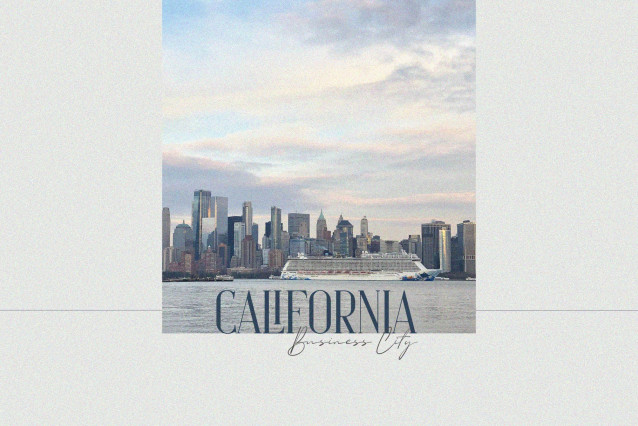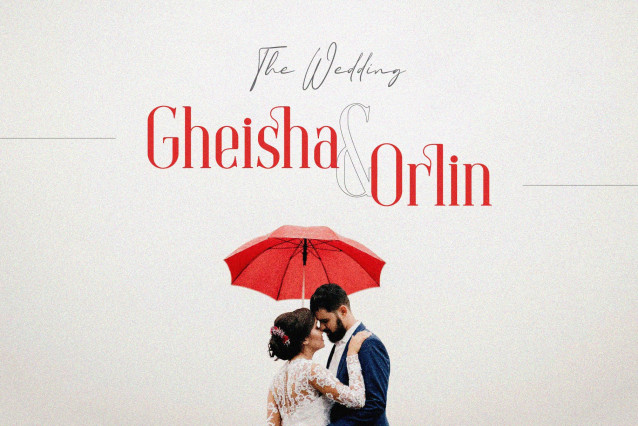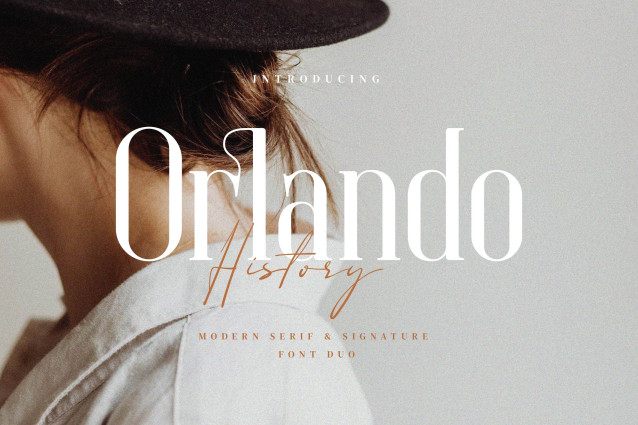
Orlando History – Modern Serif Font Duo
Orlando & History Signature – Stylish Duo Ligature Typeface Display Serif inspired by the famous minimalist logo perfect for the purposes of designing templates, brochures, videos, advertising branding, logos and more.
– Standard glyphs
– Ligatures
– International Accent